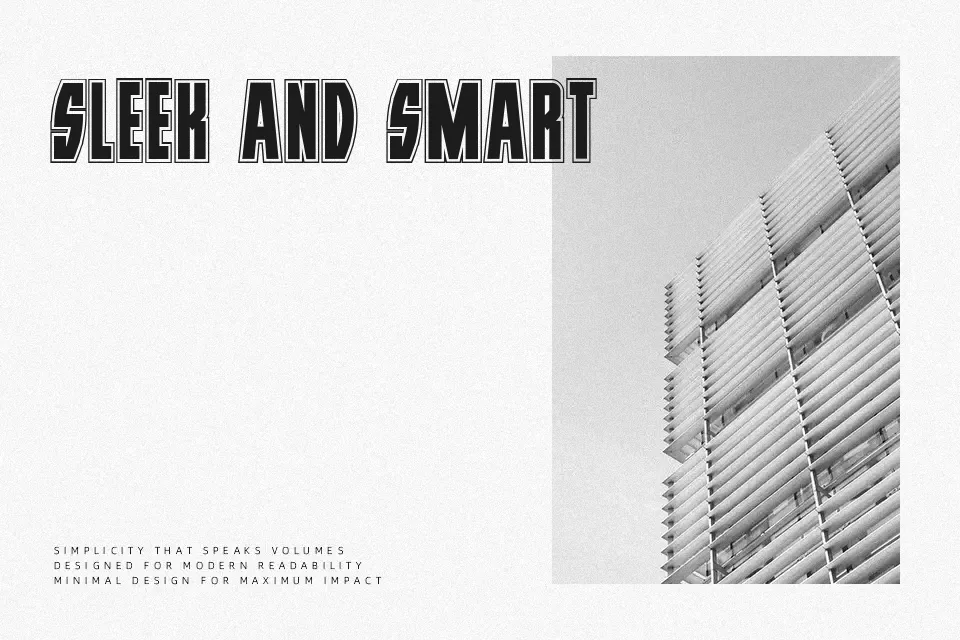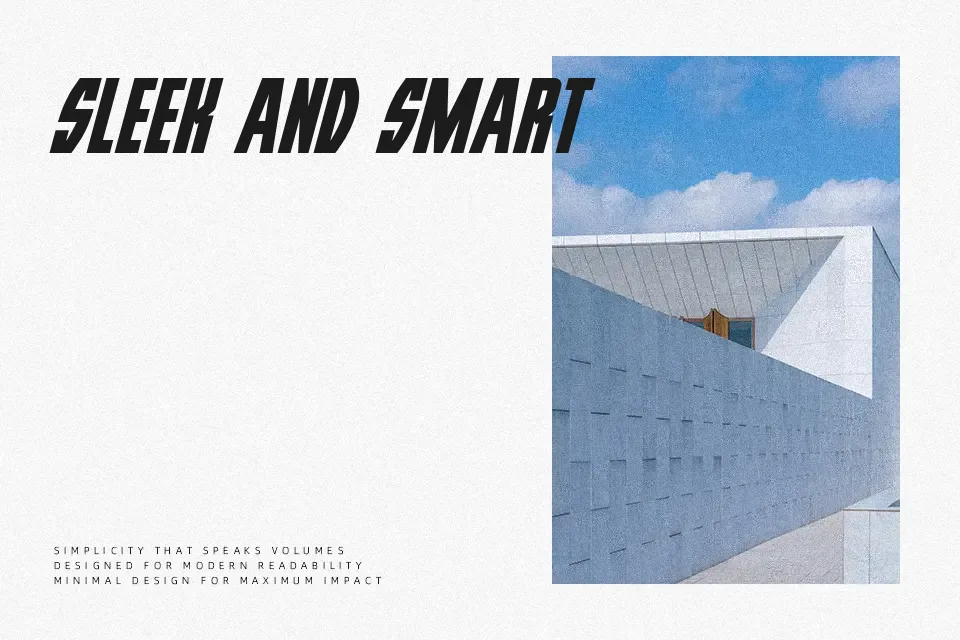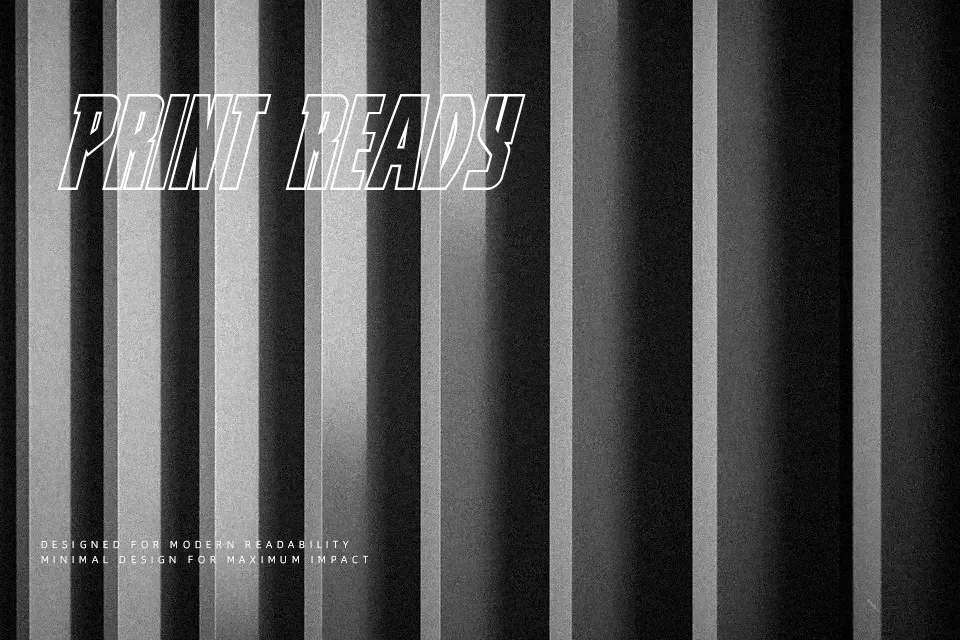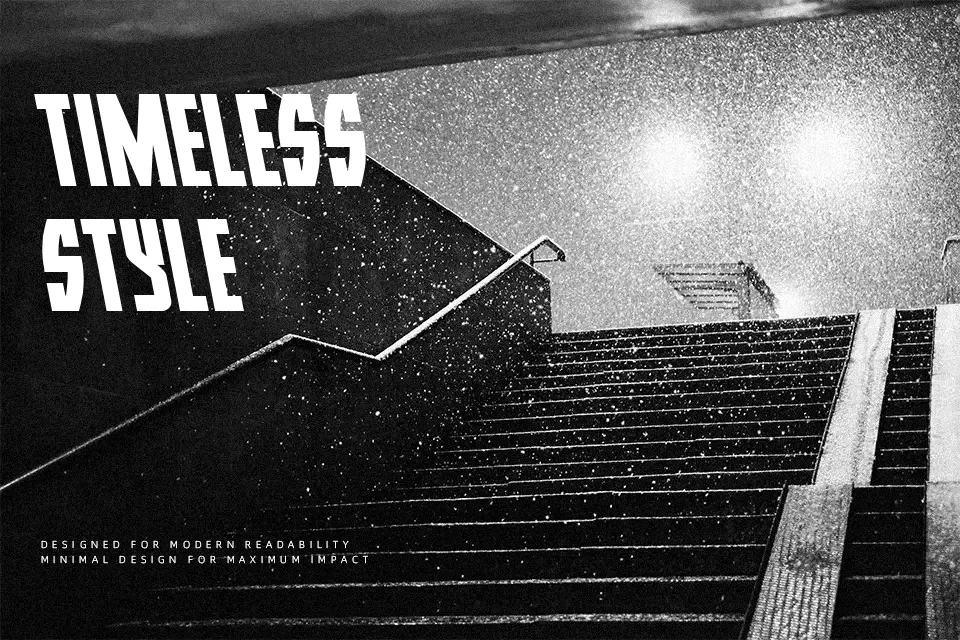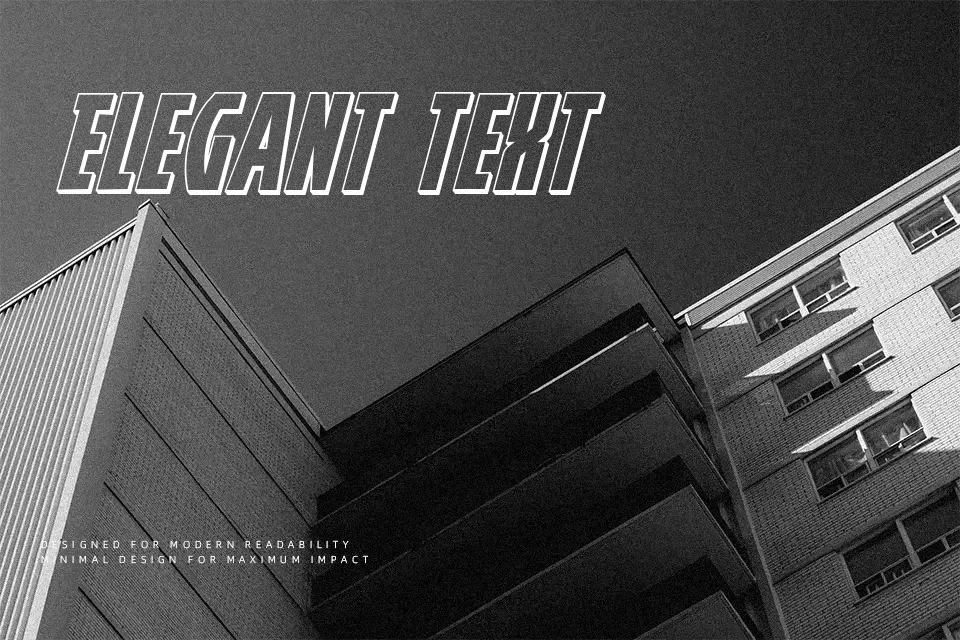
Prowler Font
Designed by Iconian Fonts
Prowler Font introduces a bold, geometric structure characterized by sharp, angular terminals and an aggressive visual posture. The letterforms feature a consistent, uniform stroke width that creates a solid, modern silhouette. Its compact spacing and squared-off proportions lend the typeface a powerful energy perfectly suited for high-impact applications. The tight letter spacing helps maintain strong visibility in large headlines and energetic sports graphics. However, this dense construction creates a distinct limitation in continuous reading environments, as the thick strokes heavily reduce legibility at smaller point sizes. The design remains less ideal for long paragraph text, performing best in gaming logos and action movie posters where immediate visual authority is essential.
action movie posters
energetic sports team branding
prominent gaming logos
bold athletic apparel graphics
continuous paragraph text
dense corporate reports
Perfect for gaming, headline, and poster, with a bold and display style.